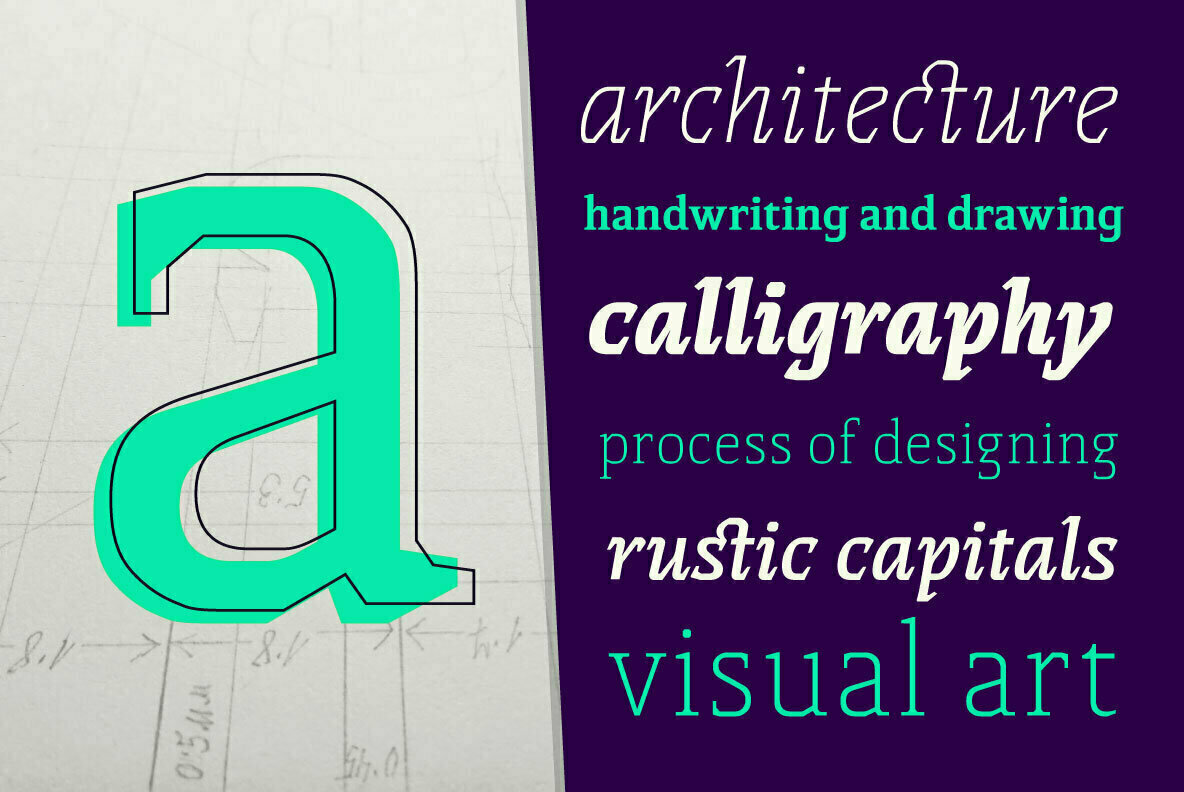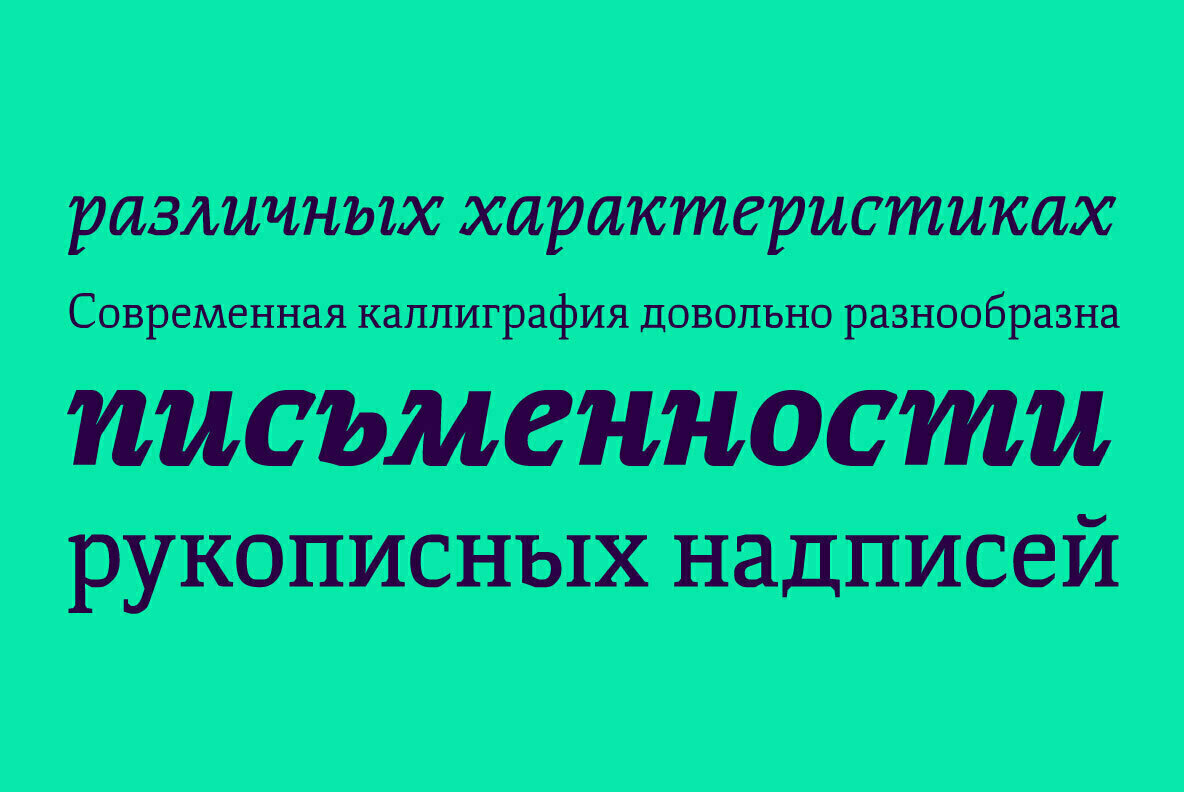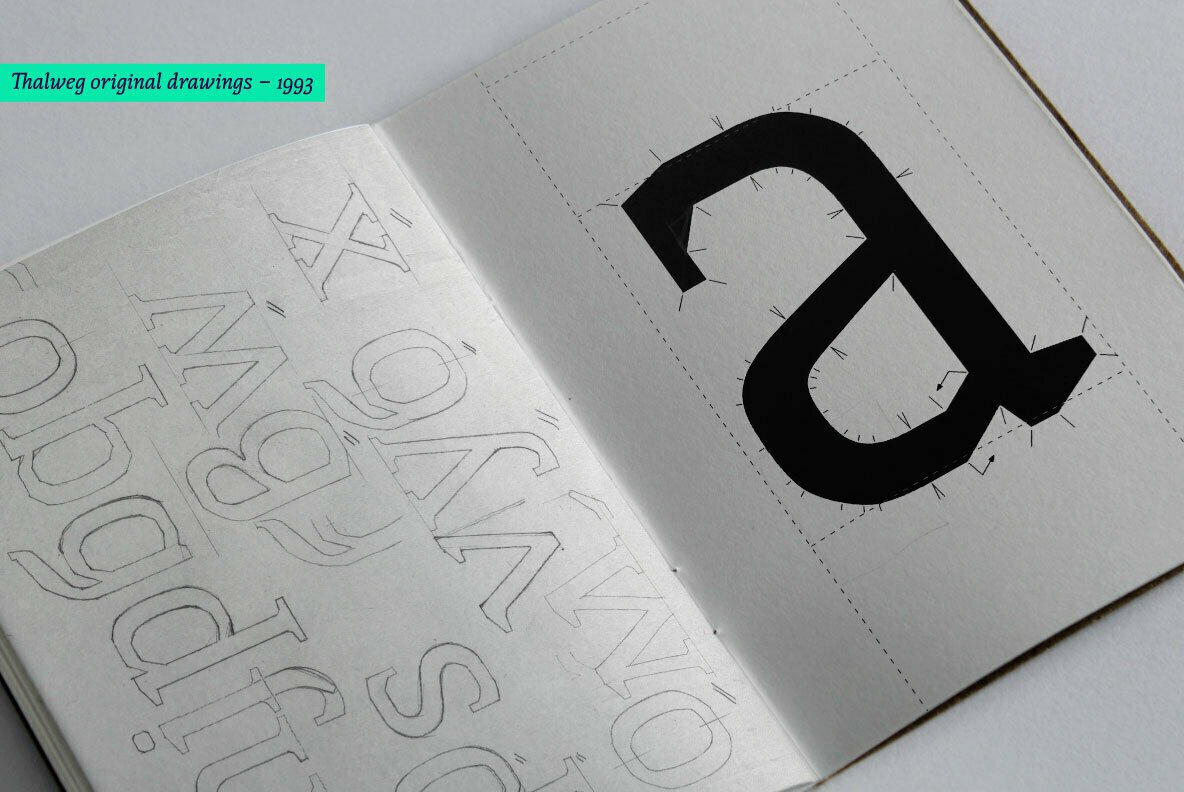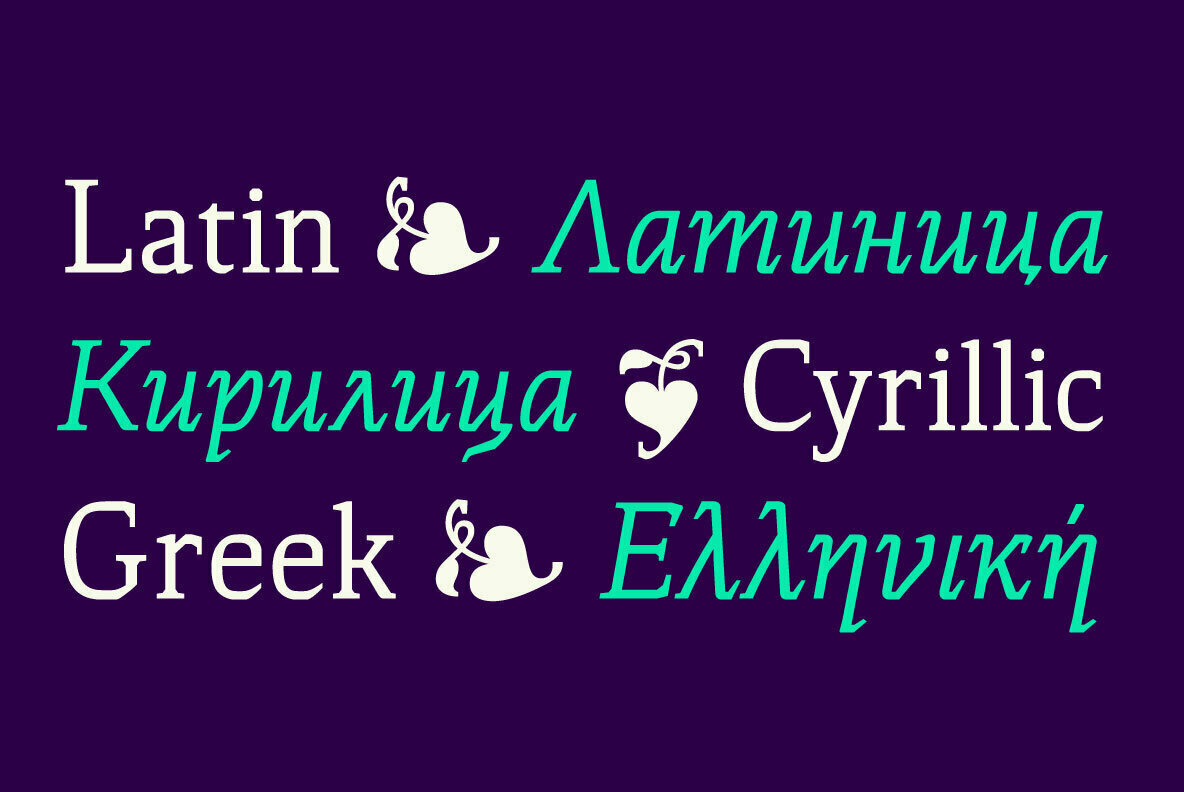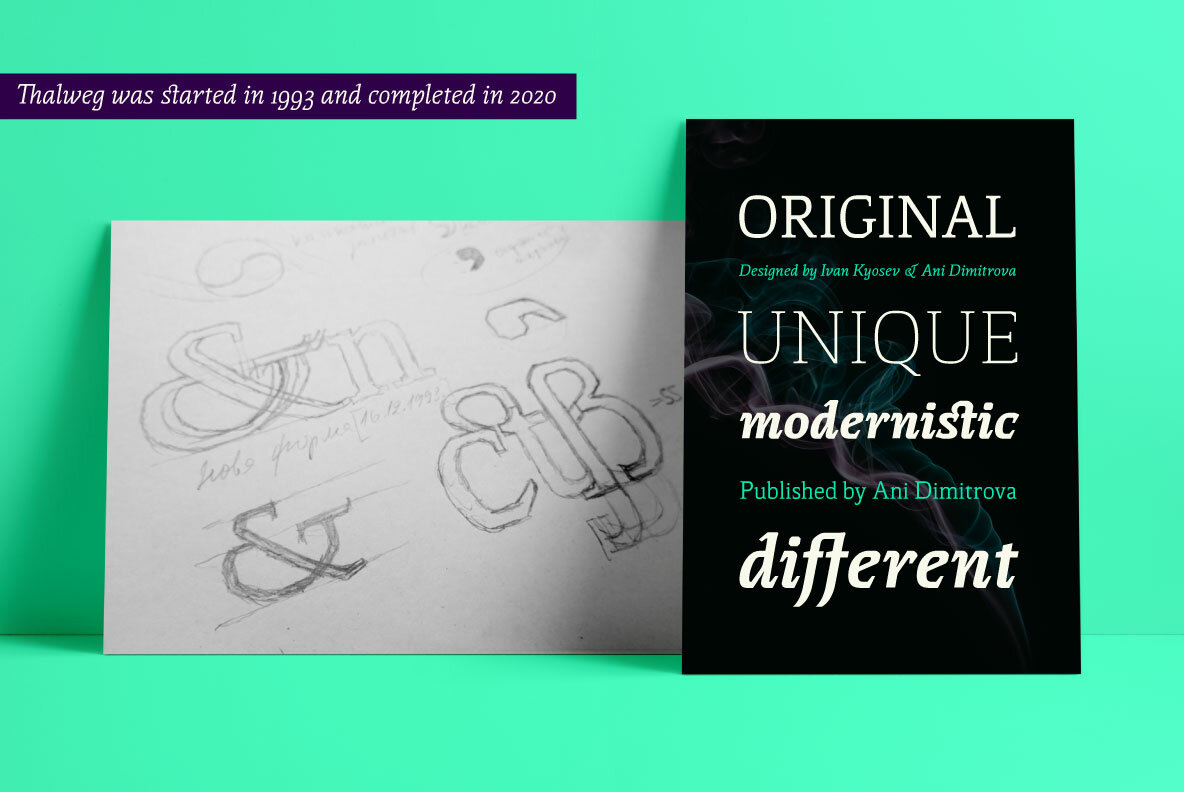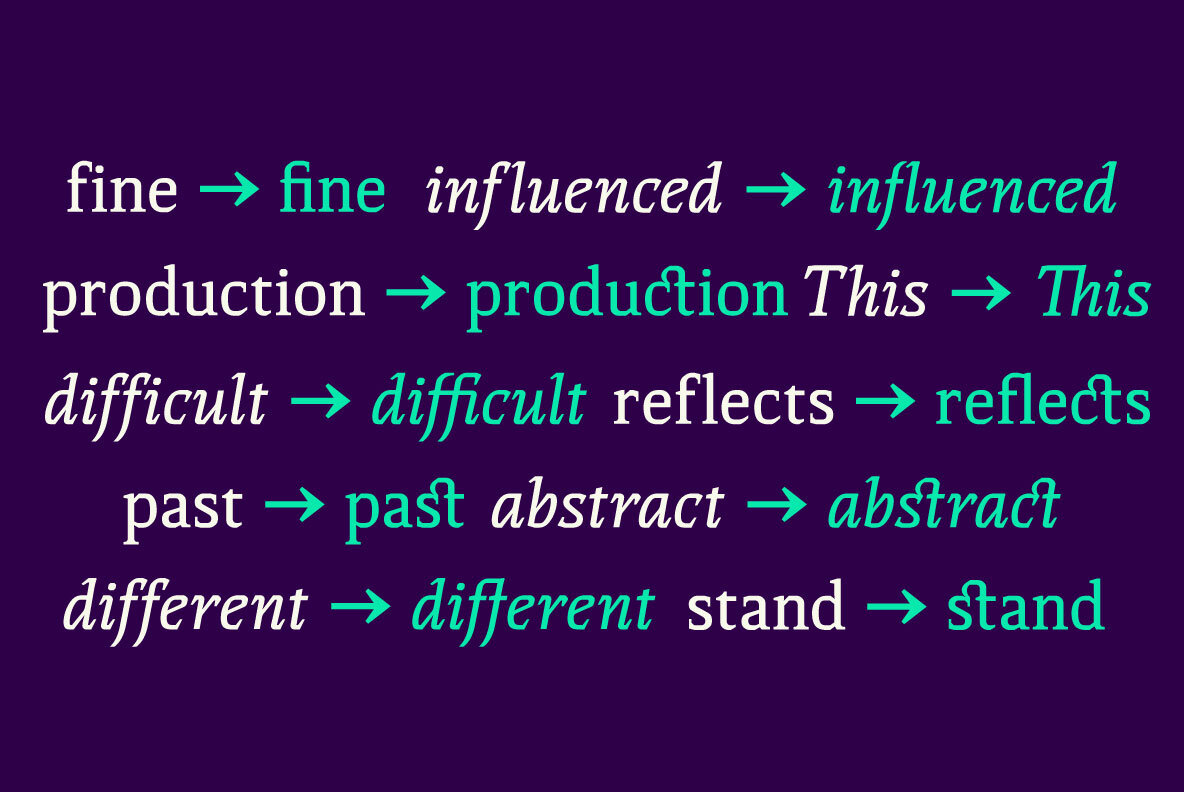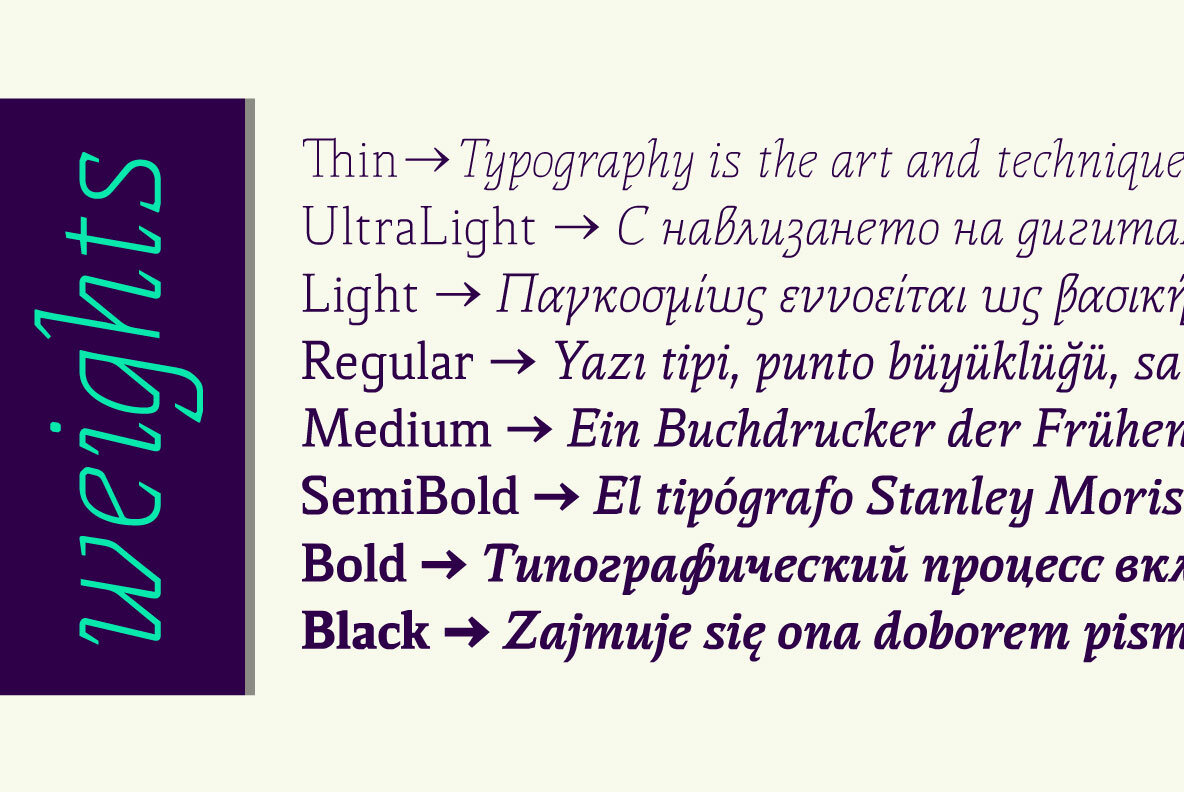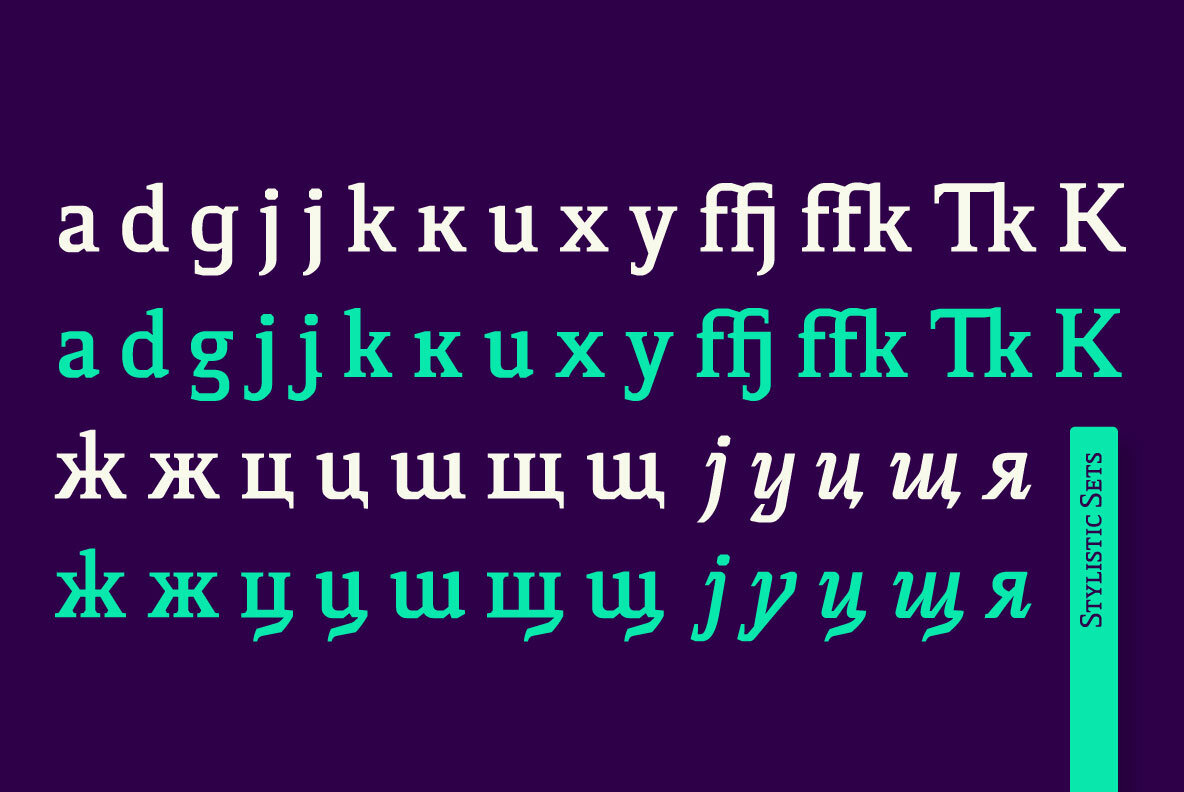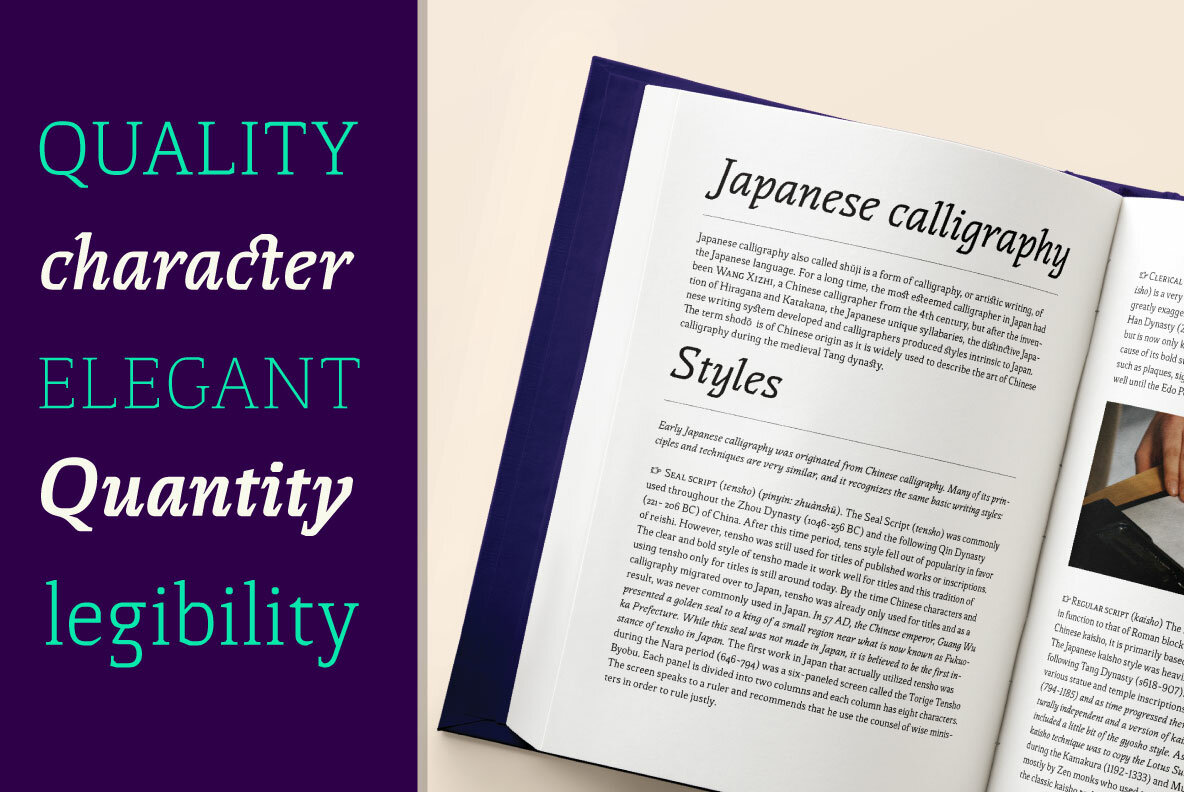
Thalweg Font
Thalweg serif typeface is a project focused on the digitalization and development of the Thalweg font. The font was originally designed in 1993 by the Bulgarian artist Ivan Kyosev. In 2018 Ani Dimitrova began the revival of the Thalweg font and converted the drawings into a digital form. The existing set of characters required some necessary expansions such as the development of capital letters, alternative symbols and many other functions. Furthermore, some additional weights were developed which aimed to make the font more complete.
Thalweg was completed in 2020 with 16 weights ranging from Thin to Black with extra drawn italics and small caps versions, each style containing more than 1100 glyphs. The font comes with an extended coverage of the Latin, Cyrillic and Greek Scripts. All of the weights are specifically equipped for complex, professional typography with Open Type Features. These features include: Small Caps, Ligatures, Discretionary Ligatures, Superscript, Subscript, Tabular Figures, Old-Style Figures, Circled Figures, Arrows, Matching currency symbols and fraction. The Thalweg serif typeface is a perfect choice for body text, branding design, web design, editorial design and more.
Ivan Kyosev (1933-1994) was one of Bulgaria’s most famous artists whose work influenced several generations of bulgarian designers. He was born on February 5, 1933, in the city of Burgas. In 1957 he graduated in illustration at the National Academy of Art in Sofia led by Prof. Iliya Beshkov. Mr. Kyosev was a member in the management of the “Graphics and Illustration” section in the Union of Bulgarian Artists, member of the UBA board, artist in the publishing houses “September” and “World”. Together with Boris Angelushev, he worked on the layout design of the “Literary Front” newspaper. Furthermore, in 1963 - 1964 he was the main artist in the publishing house “Prosveta”. Ivan Kyosev excelled in the field of illustration, book design and library layouts in various genres (classics, children's literature, poetry, journalism, memoirs, etc.). He is also the author of many fonts.
Ani Dimitrova was born in 1988 in Sofia, Bulgaria.She completed her secondary education in 2007 at The National School of Fine Arts, Sofia.She completed her Bachelor’s degree at The National Academy of Art in Sofia with specialization in book and printed graphics. And in February 2014 she completed her...